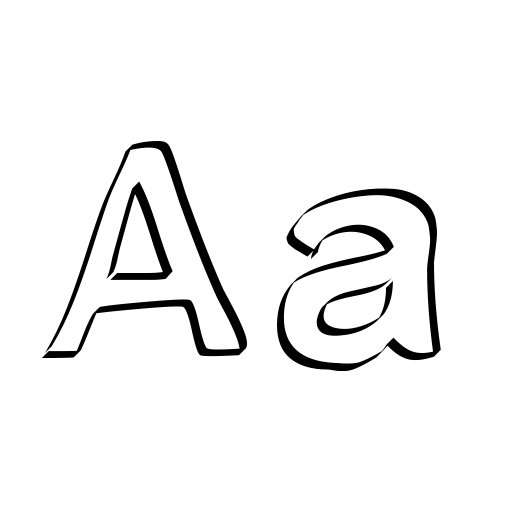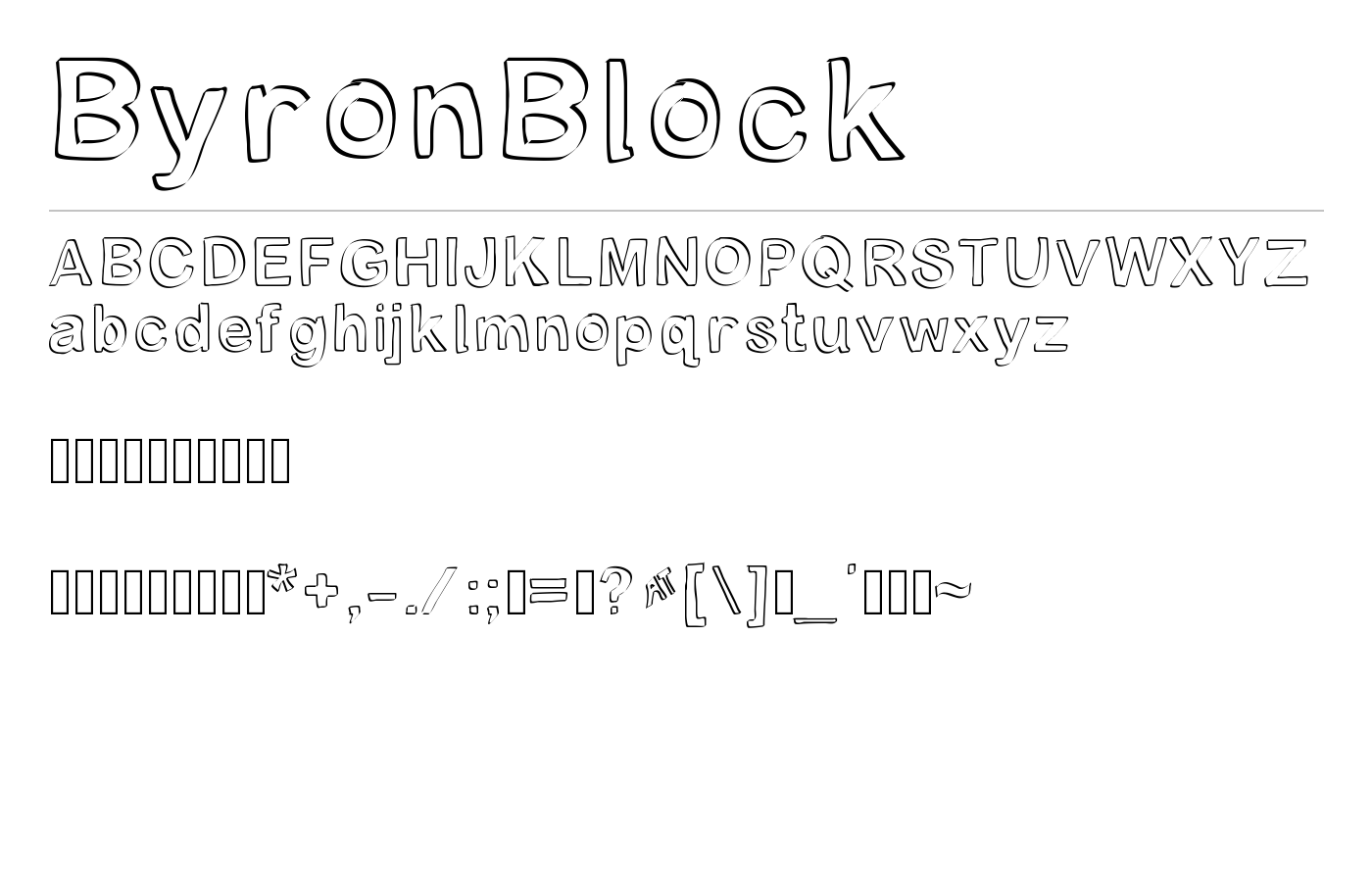
ByronBlock is a playful and quirky sans serif font with a hand-drawn, outlined style that gives it a casual and artistic feel. Its slightly irregular letter shapes and light stroke weight evoke an informal and creative mood, making it perfect for designs that want to appear friendly and approachable. This font works well for headlines, logos, and packaging where a unique and fun personality is desired.
ByronBlock Font